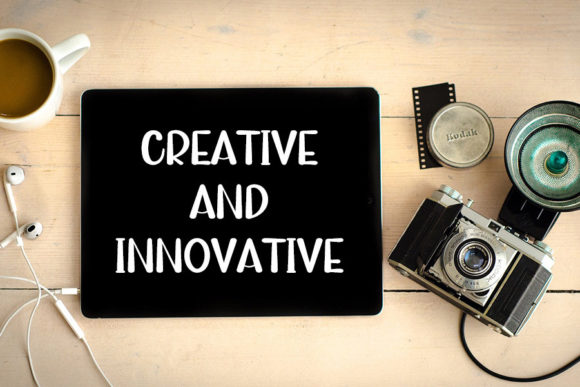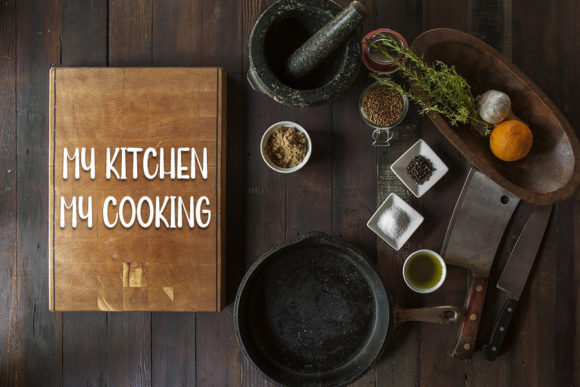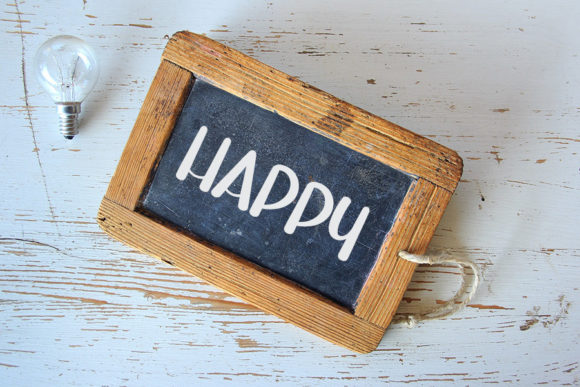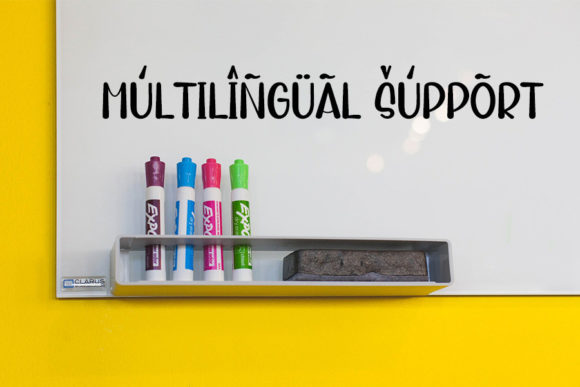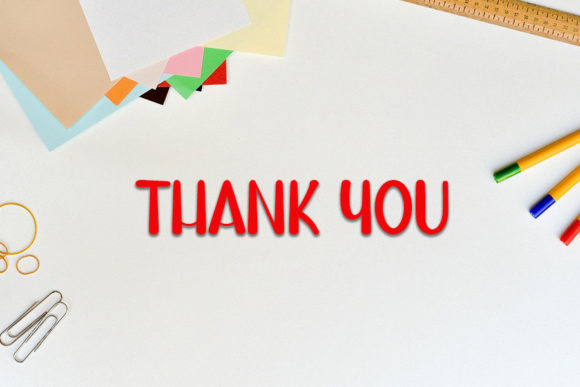
Introduction to Mermaids School Font Font
Fonts play a crucial role in design, and the Mermaids School Font font is a typeface that brings both character and versatility to any project. Whether you’re working on a branding project, a website, or a print design, the Mermaids School Font font offers a unique style that can elevate your work.
Mermaids School is a simple and smart looking display font with a contemporary atmosphere and impeccable form, inspired by a chic calligraphy.
Not too thin and not too thick, balanced and varied, this font was designed to enhance the beauty of your projects .
Key Features of Mermaids School Font Font
Why Choose Mermaids School Font Font?
The Mermaids School Font font is more than just a typeface – it’s a design tool that helps you communicate your message with style and clarity. Its unique character set and versatile design make it suitable for a wide range of applications, from elegant invitations to bold headlines.
With its carefully crafted letterforms and balanced proportions, the Mermaids School Font font ensures readability and visual appeal across all mediums.
What makes Mermaids School Font font special?
The Mermaids School Font font stands out with its unique design, exceptional readability, and versatility across various design applications.